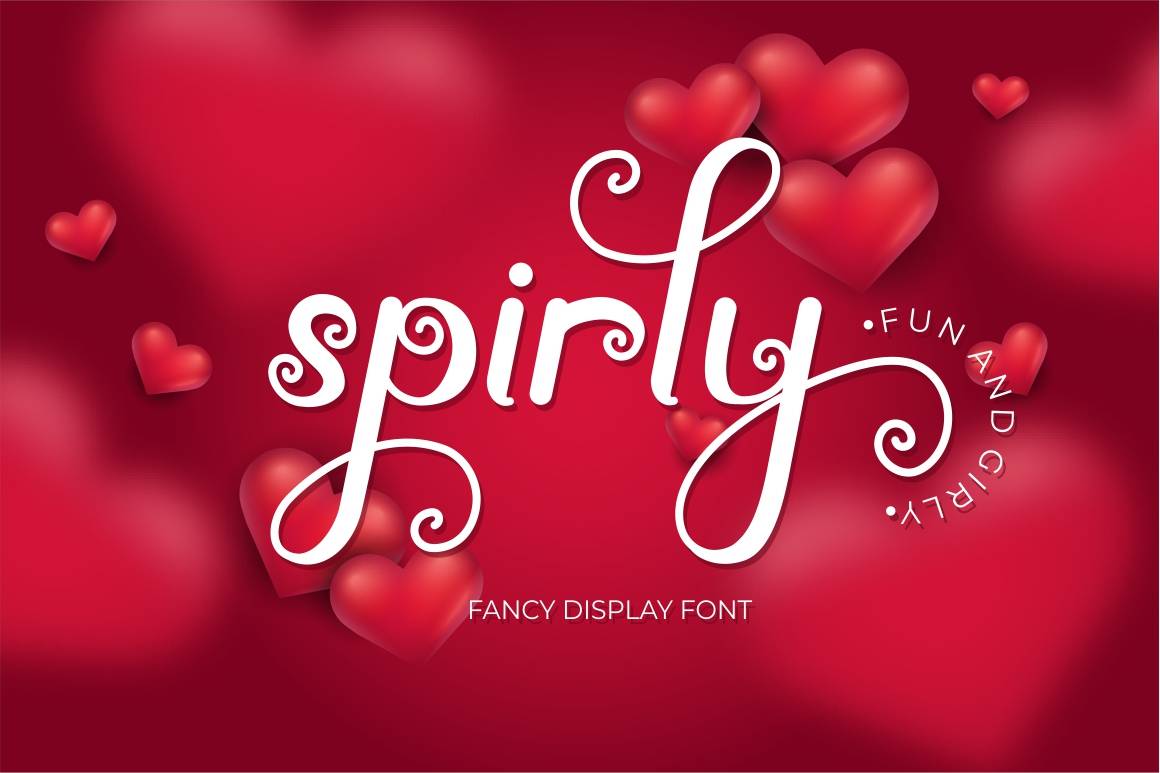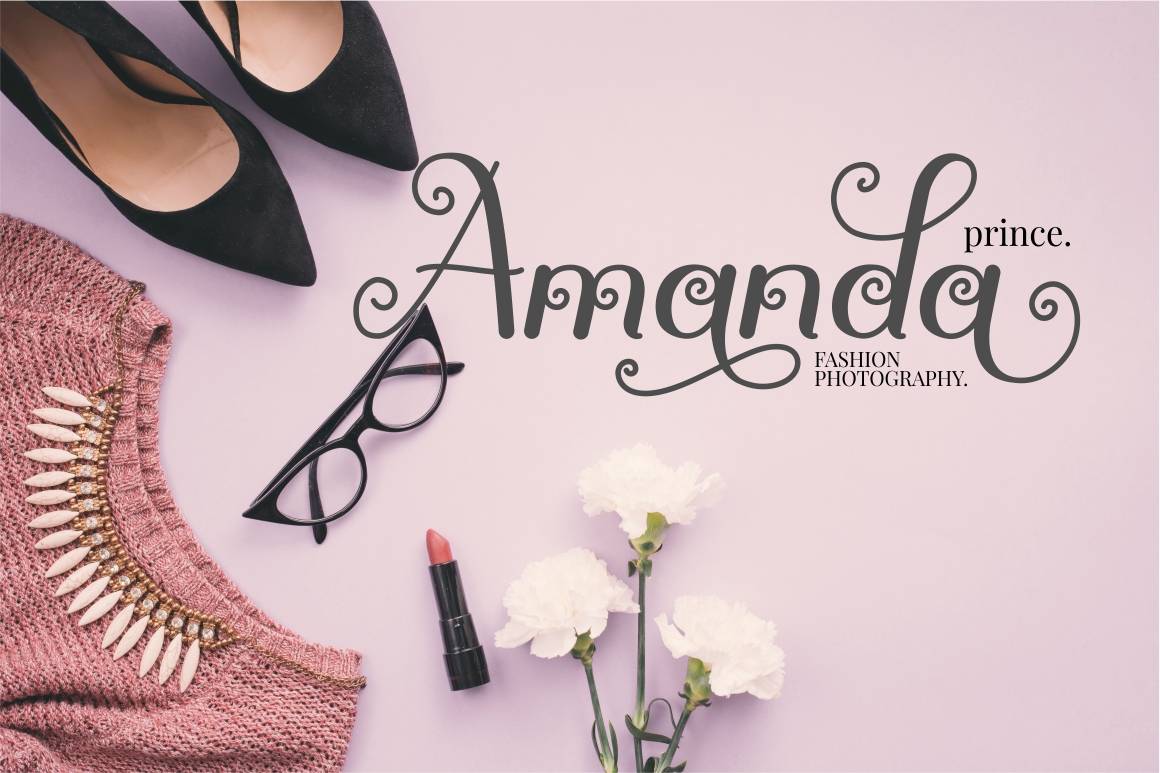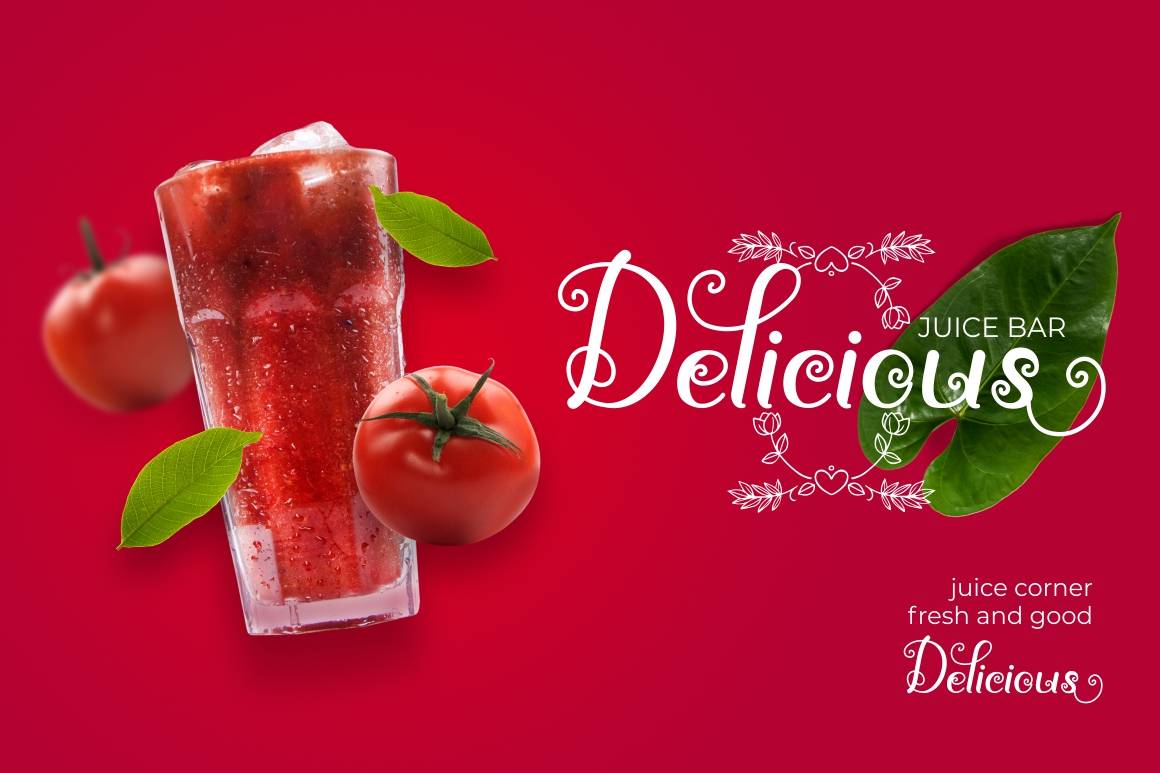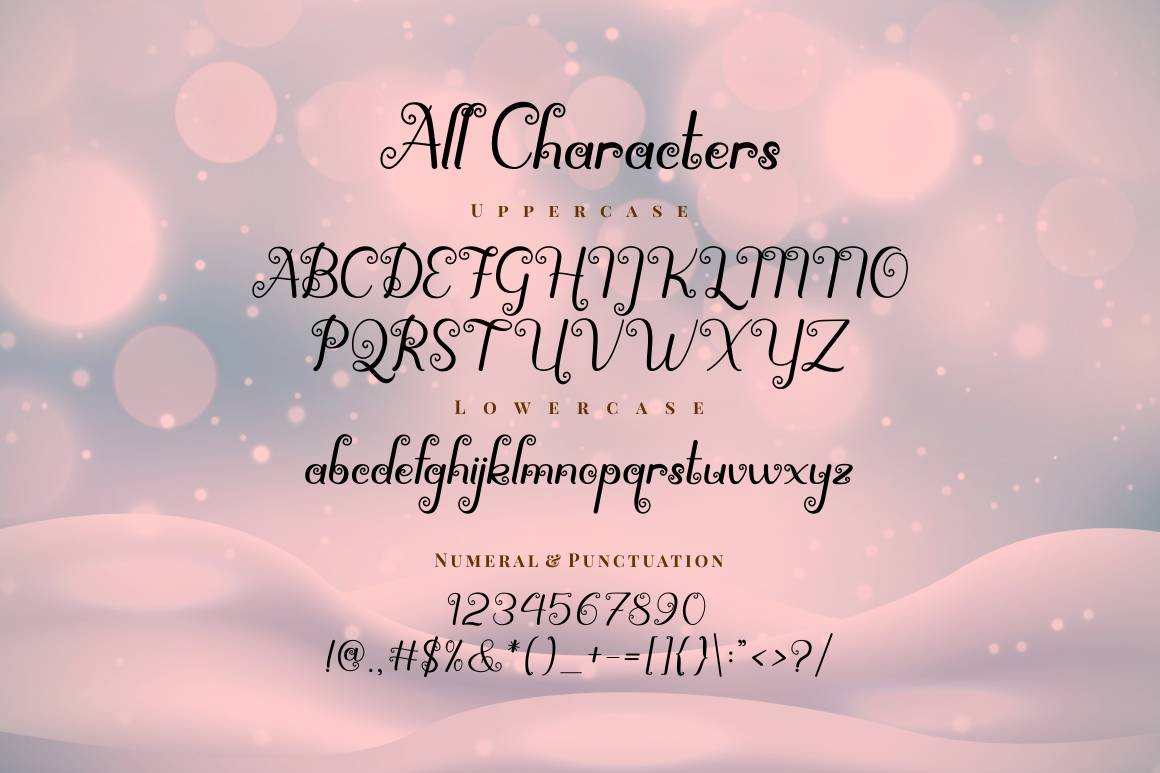
Spirly Font is a delicate, decorative script typeface characterized by thin, elegant strokes adorned with charming spiral curls on many letters, giving it a whimsical and playful feel. Its light weight and refined, narrow letterforms make it ideal for creative, artistic projects, invitations, or branding that seeks a unique, friendly, and feminine touch. This font works best in headlines or logos where a distinctive, fanciful style is desired rather than on dense body text.
Spirly Font
About Spirly Font